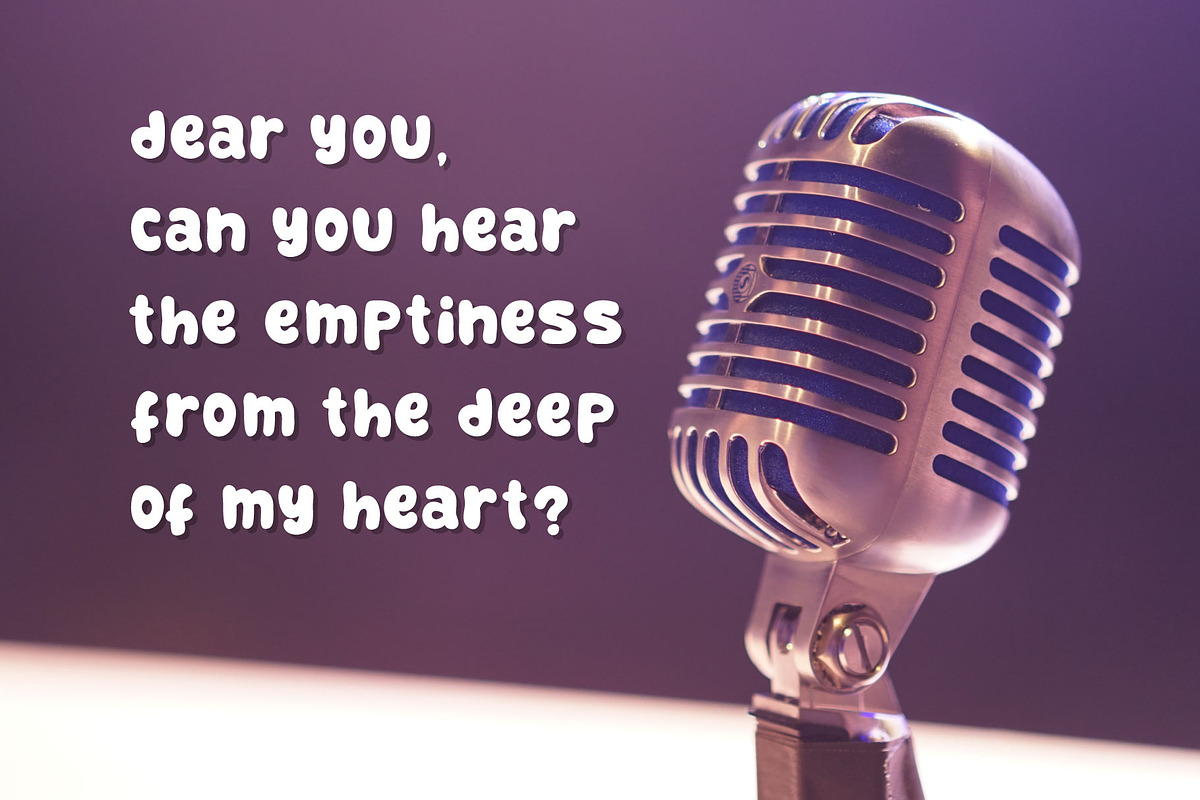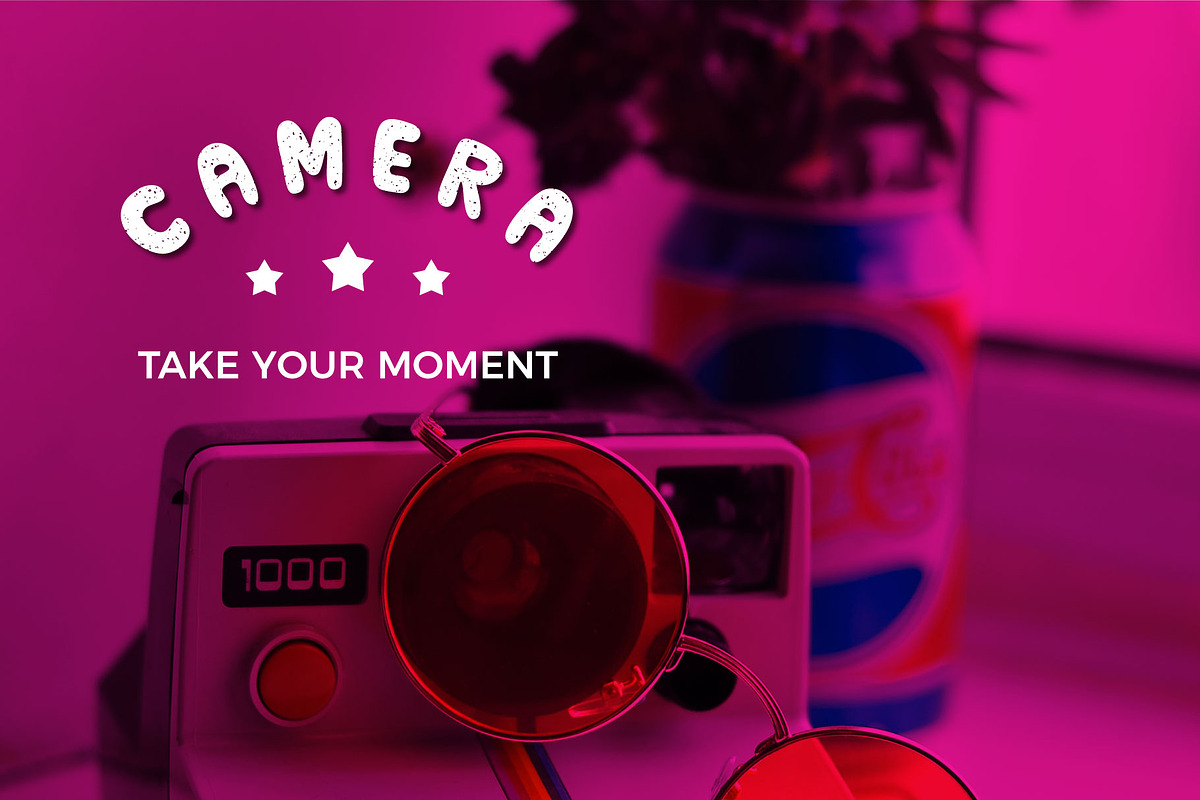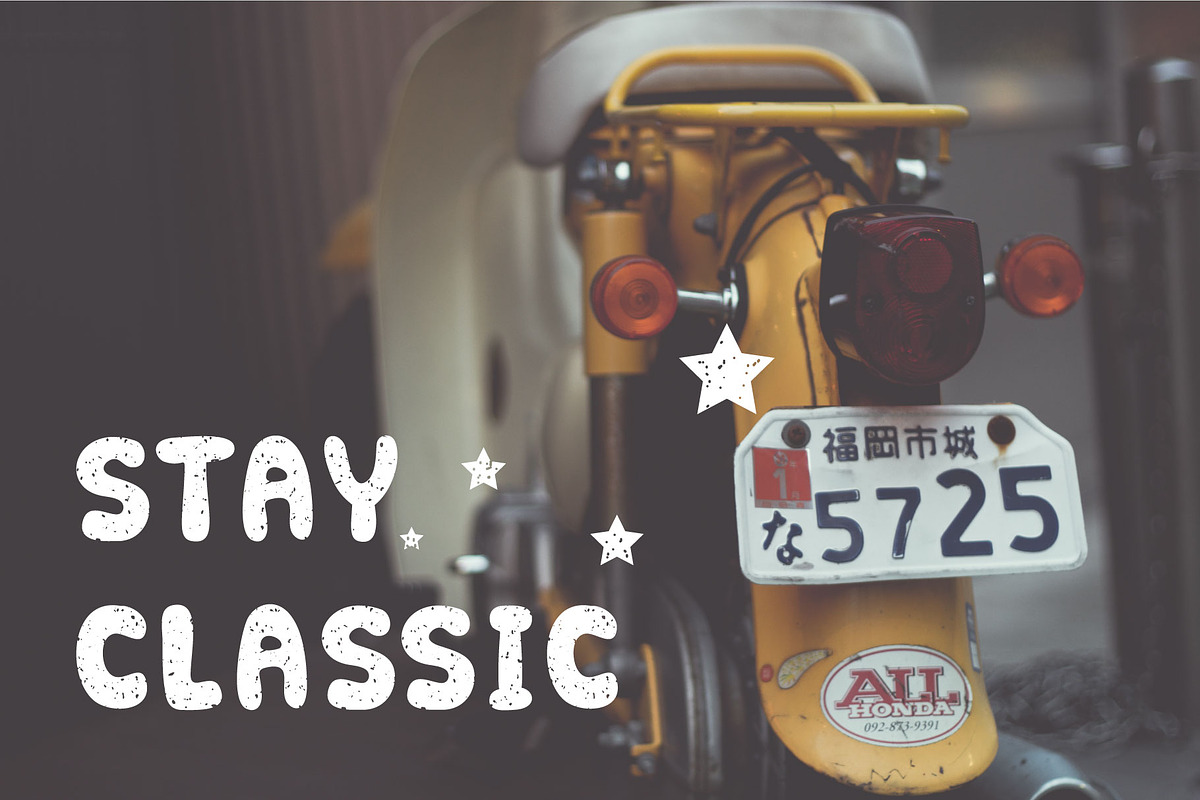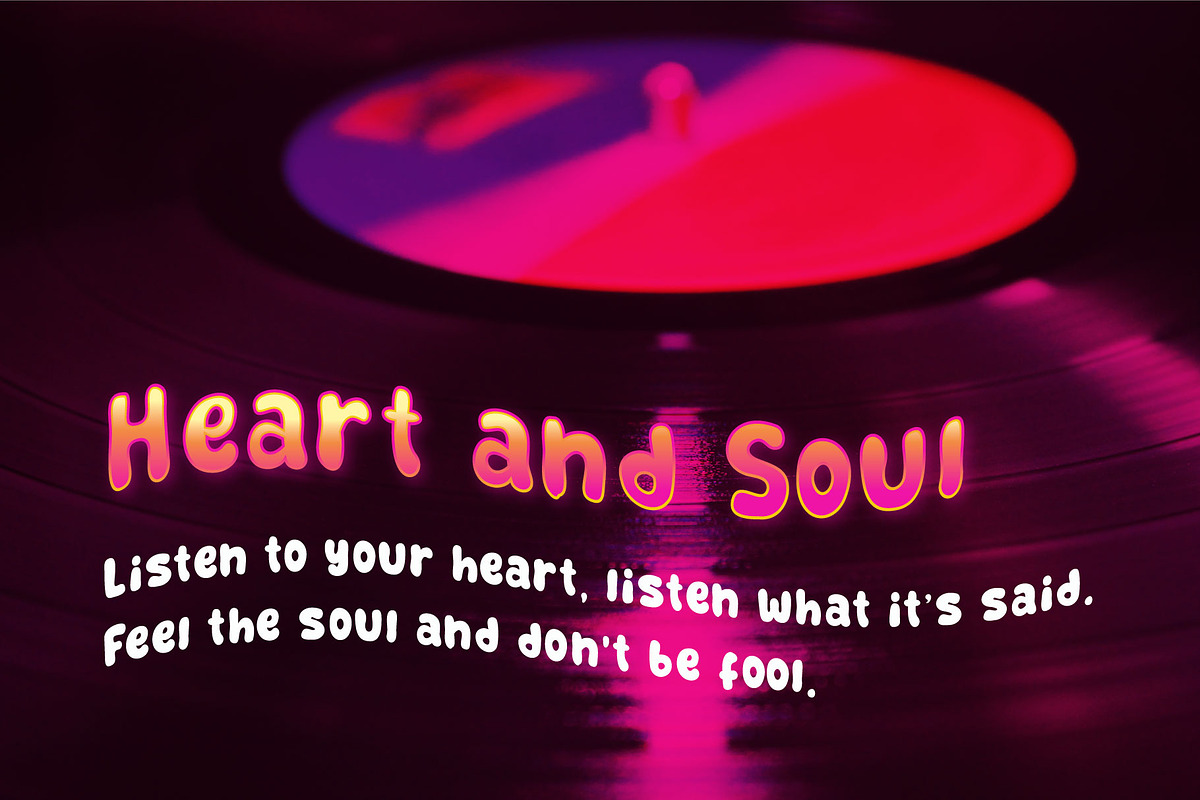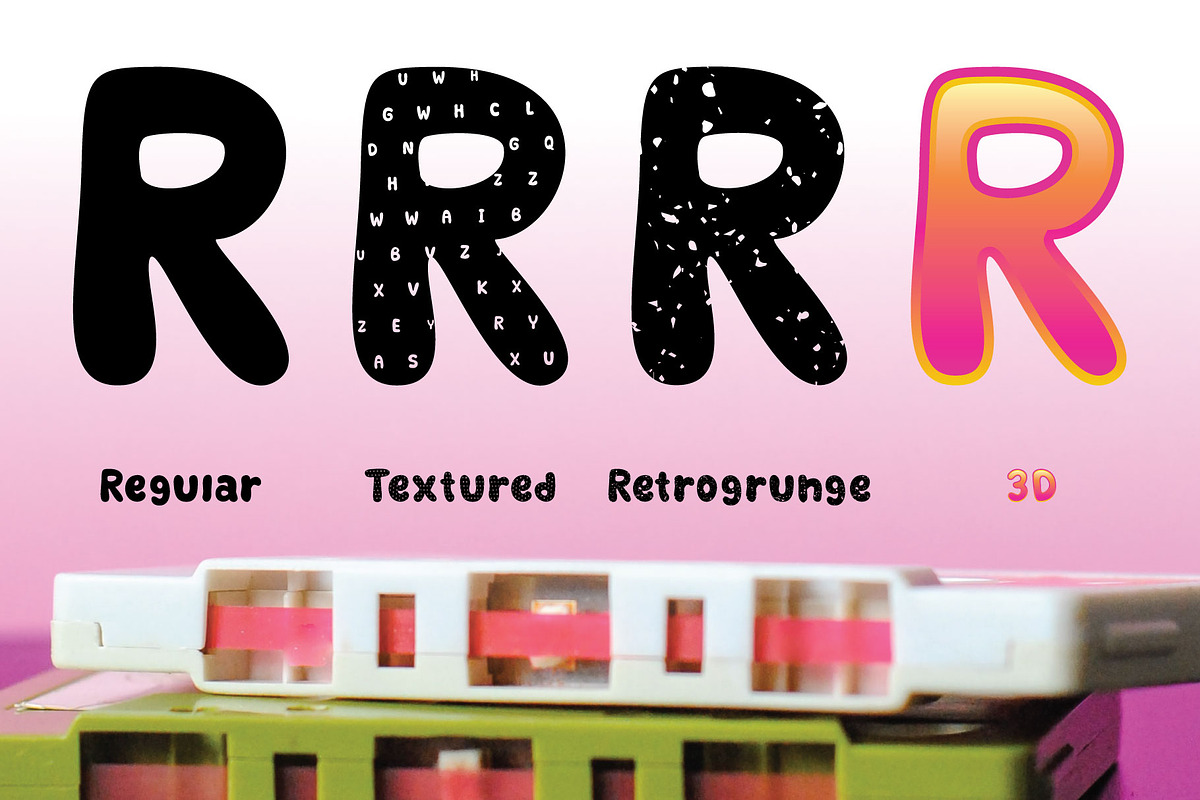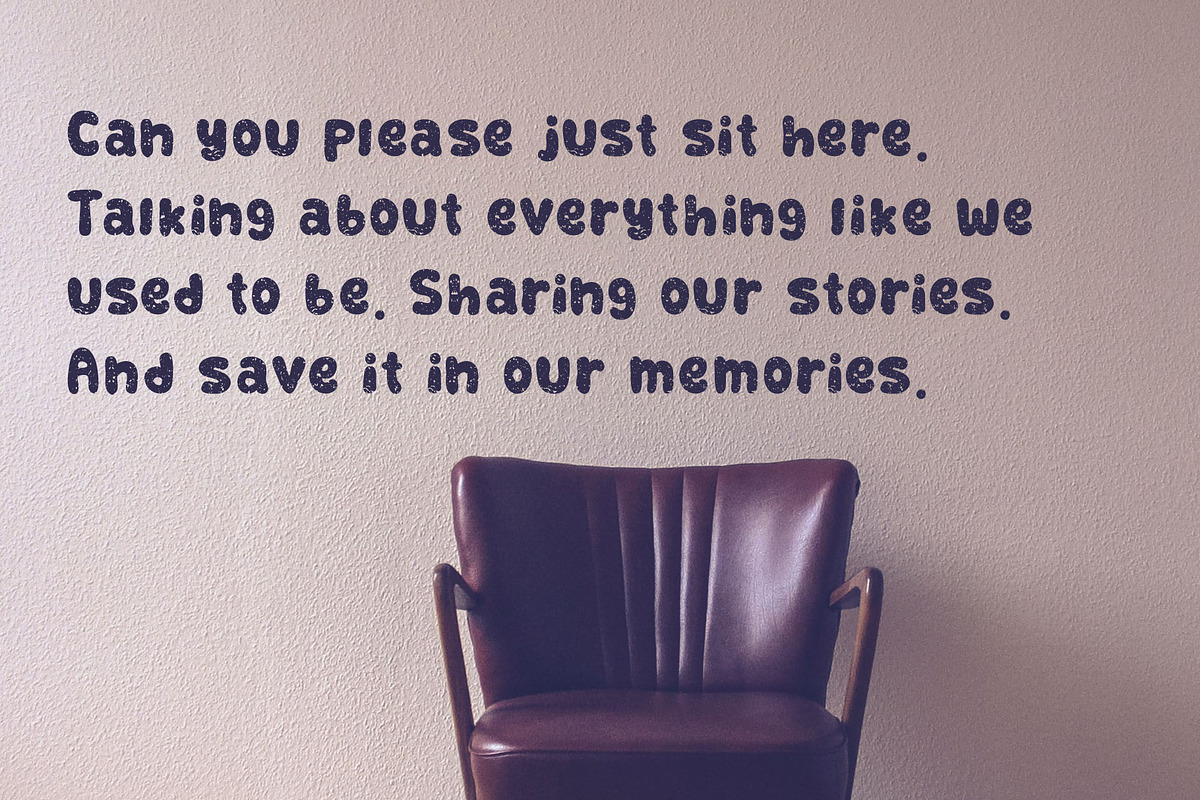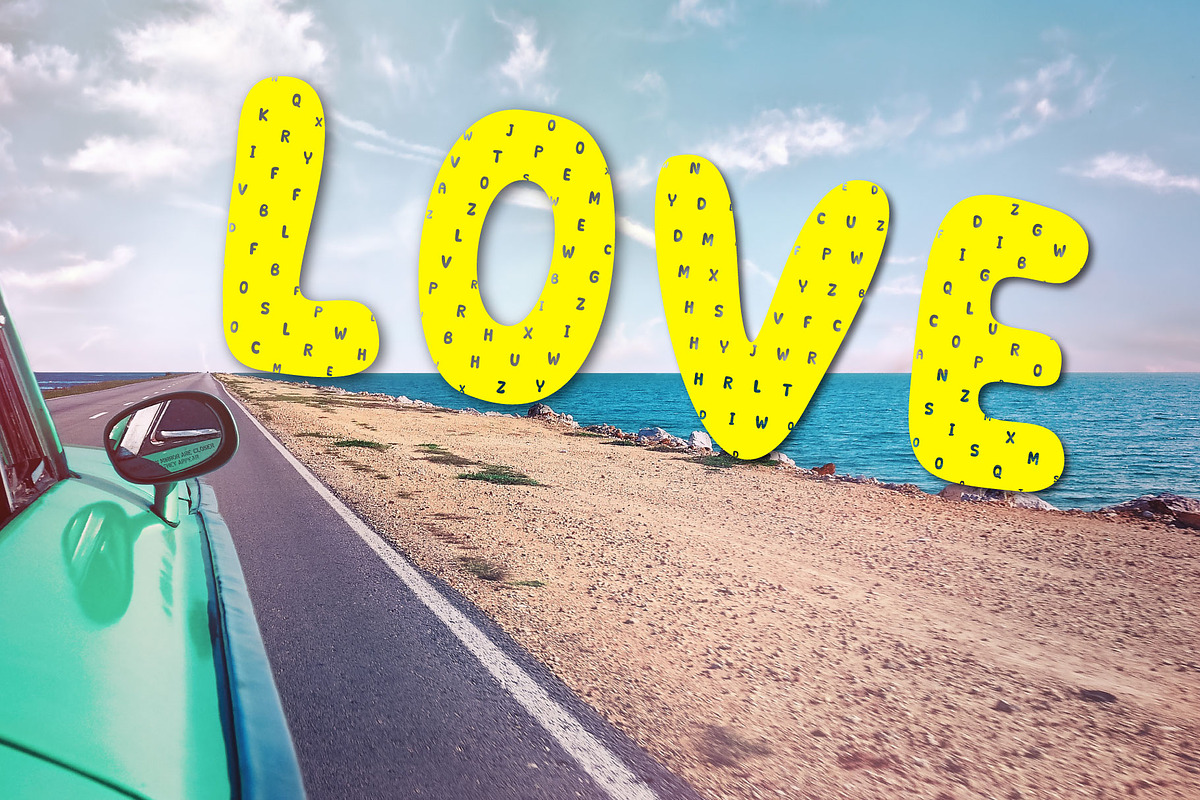
Retrofield - Pop retro family fonts
Please welcome, "RETROFIELD Pop Retro Family Fonts"
As a family fonts, we offer not only one font here. So please let us introduce our four kids here:
Why Retrofield - Pop retro family fonts is worth a look